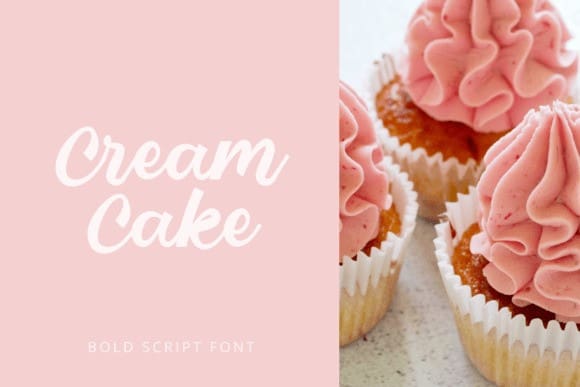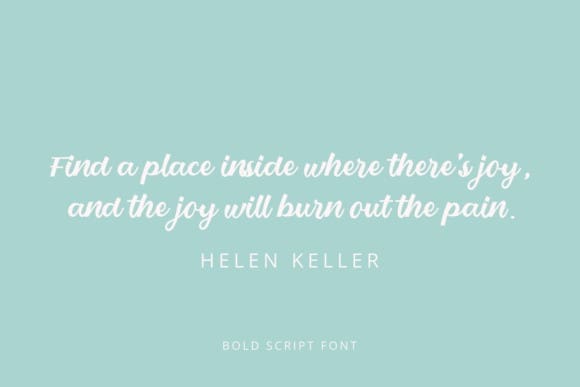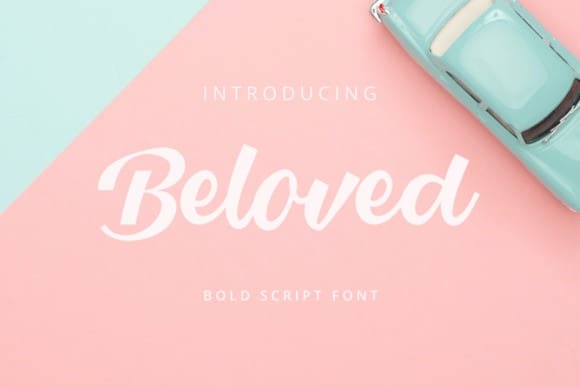
Beloved Bold Script Font
Beloved Bold Script, boasts strong, bold letterforms that evoke the spirit of vintage jerseys and college scripts, making it an ideal choice for creating bold designs in areas such as sports branding, retro-inspired apparel, and classic college themes. Its clean lines and solid presence ensure readability while still providing timeless appeal.